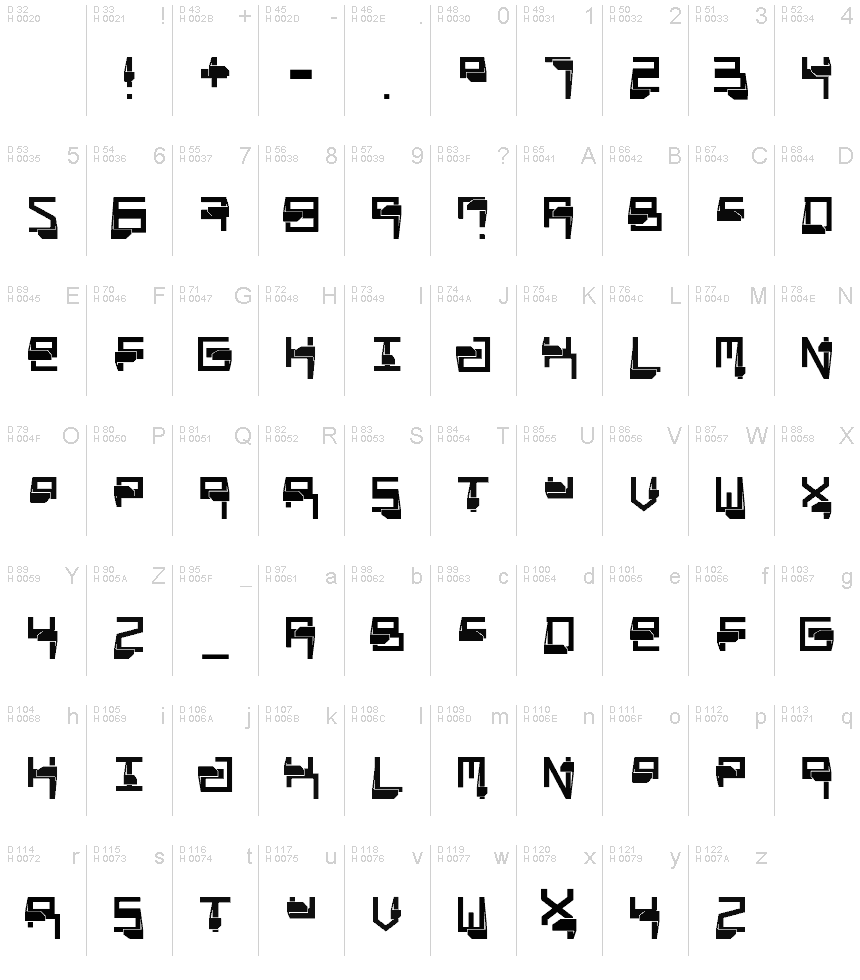
Miaou
Miaou is a striking display font that exudes a distinct techno-inspired style. Designed by Qkila, this expanded font captivates with its sharp, geometric letterforms and bold presence.
The expansive character width adds a sense of dynamism and visual impact, making Miaou an ideal choice for attention-grabbing headlines, logos, and digital interfaces. Its modern, futuristic aesthetic lends itself well to a variety of design applications, from sleek branding and packaging to impactful event posters and digital advertisements.
Miaou's versatility allows designers to harness its powerful visual identity to elevate their projects and create a lasting impression.
The expansive character width adds a sense of dynamism and visual impact, making Miaou an ideal choice for attention-grabbing headlines, logos, and digital interfaces. Its modern, futuristic aesthetic lends itself well to a variety of design applications, from sleek branding and packaging to impactful event posters and digital advertisements.
Miaou's versatility allows designers to harness its powerful visual identity to elevate their projects and create a lasting impression.